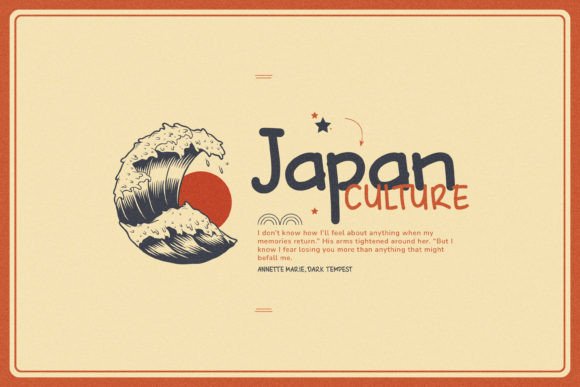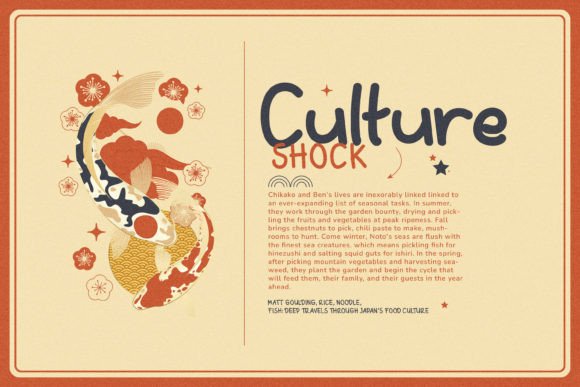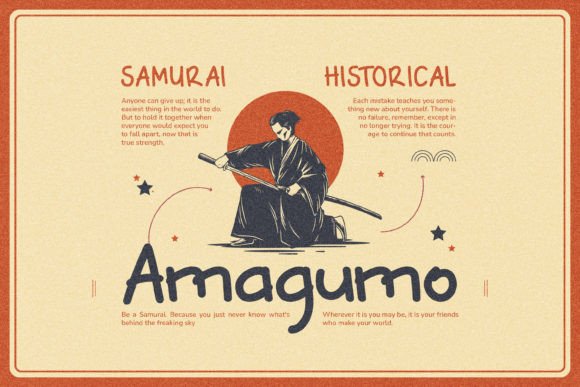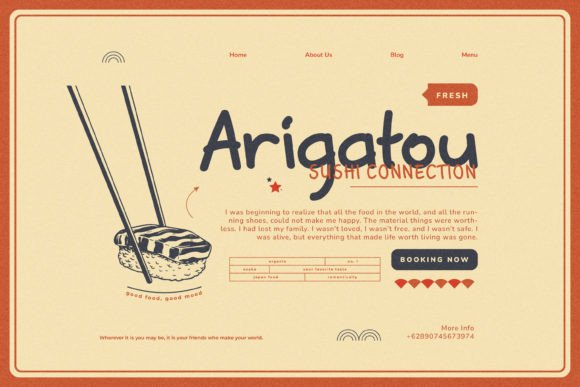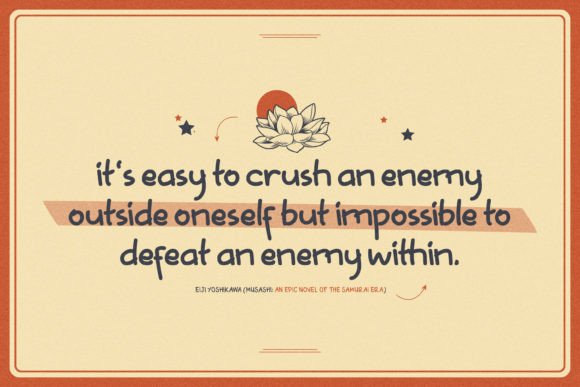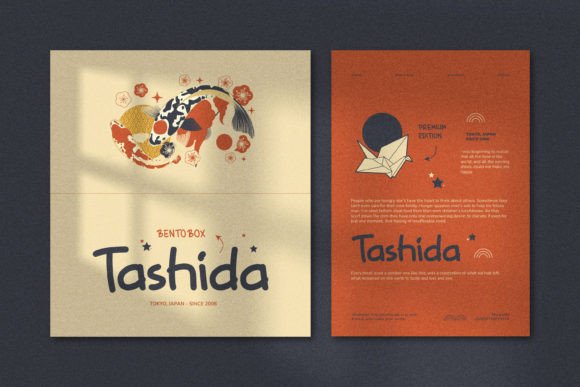
Introducing Doobae Font: The Playful and Fun Handwritten Font to Bring Your Text to Life!
Are you tired of using the same old boring fonts for your designs? Look no further! Doobae Font is here to revolutionize the way you add a personal touch to your creative projects. This playful and fun handwritten font is perfect for bringing any text to life, making it an ideal choice for designers and crafters alike.
What Makes Doobae Font So Special?
Doobae Font is a unique and eye-catching typeface that is sure to make your designs stand out from the crowd. Its playful and fun handwritten style is perfect for adding a touch of personality to any text, making it ideal for a wide range of projects, from wedding invitations and birthday cards to skincare company branding and food labels.
One of the best things about Doobae Font is its versatility. It can be used for both personal and commercial projects, and its flexibility makes it easy to pair with other fonts to create a unique and cohesive look. Whether you’re a designer, crafter, or DIY enthusiast, Doobae Font is a great addition to your font collection.
So, what can you use Doobae Font for? The possibilities are endless! Here are just a few ideas to get you started:
- Wedding Invitations: Add a touch of whimsy and romance to your wedding invitations with Doobae Font. It’s the perfect way to set the tone for a fun and playful wedding celebration.
- Birthday Cards: Make your birthday cards extra special with Doobae Font. Its playful and fun style is sure to bring a smile to the recipient’s face.
- Skincare Company Branding: Doobae Font is a great choice for skincare company branding, as it adds a touch of warmth and approachability to your brand. It’s perfect for creating a loyal customer base.
- Food Labels: Add a personal touch to your food labels with Doobae Font. Its playful style is sure to make your products stand out on the shelves.
- Logos: Doobae Font is also a great choice for logos, as it’s easy to read and recognize. It’s perfect for creating a memorable brand identity.
Why Choose Doobae Font?
So, why should you choose Doobae Font for your next project? Here are just a few reasons:
- Unique and Eye-Catching: Doobae Font is a unique and eye-catching typeface that is sure to make your designs stand out from the crowd.
- Playful and Fun: Its playful and fun handwritten style is perfect for adding a touch of personality to any text.
- Versatile: Doobae Font is versatile and can be used for both personal and commercial projects.
- Easy to Read: Despite its playful style, Doobae Font is easy to read and recognize, making it perfect for a wide range of projects.
In conclusion, Doobae Font is a playful and fun handwritten font that is perfect for bringing any text to life. Its unique and eye-catching style makes it ideal for a wide range of projects, from wedding invitations and birthday cards to skincare company branding and food labels. With its versatility, ease of use, and playful style, Doobae Font is a great addition to any designer’s or crafter’s font collection.